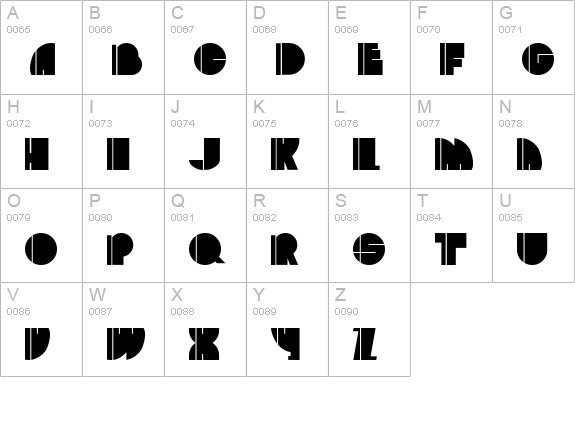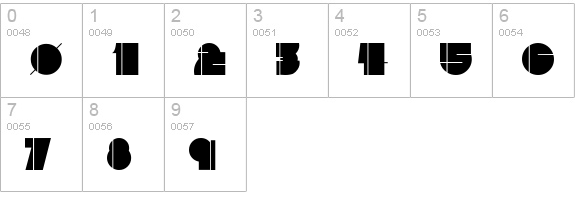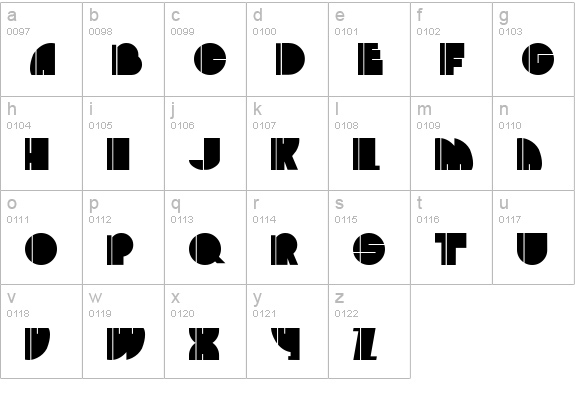
ZootAllures Font Details
ZootAllures font is a whimsical and playful typeface that captures the essence of fun and creativity. With its unique and quirky design, ZootAllures is perfect for adding a touch of personality to any project. Whether you're working on a poster, logo, or website, this font will make your text stand out in a delightful way. The best part? ZootAllures is completely free to download at FontsMarket.com. So go ahead and unleash your imagination with this charming and eye-catching font. Let your creativity run wild with ZootAllures!